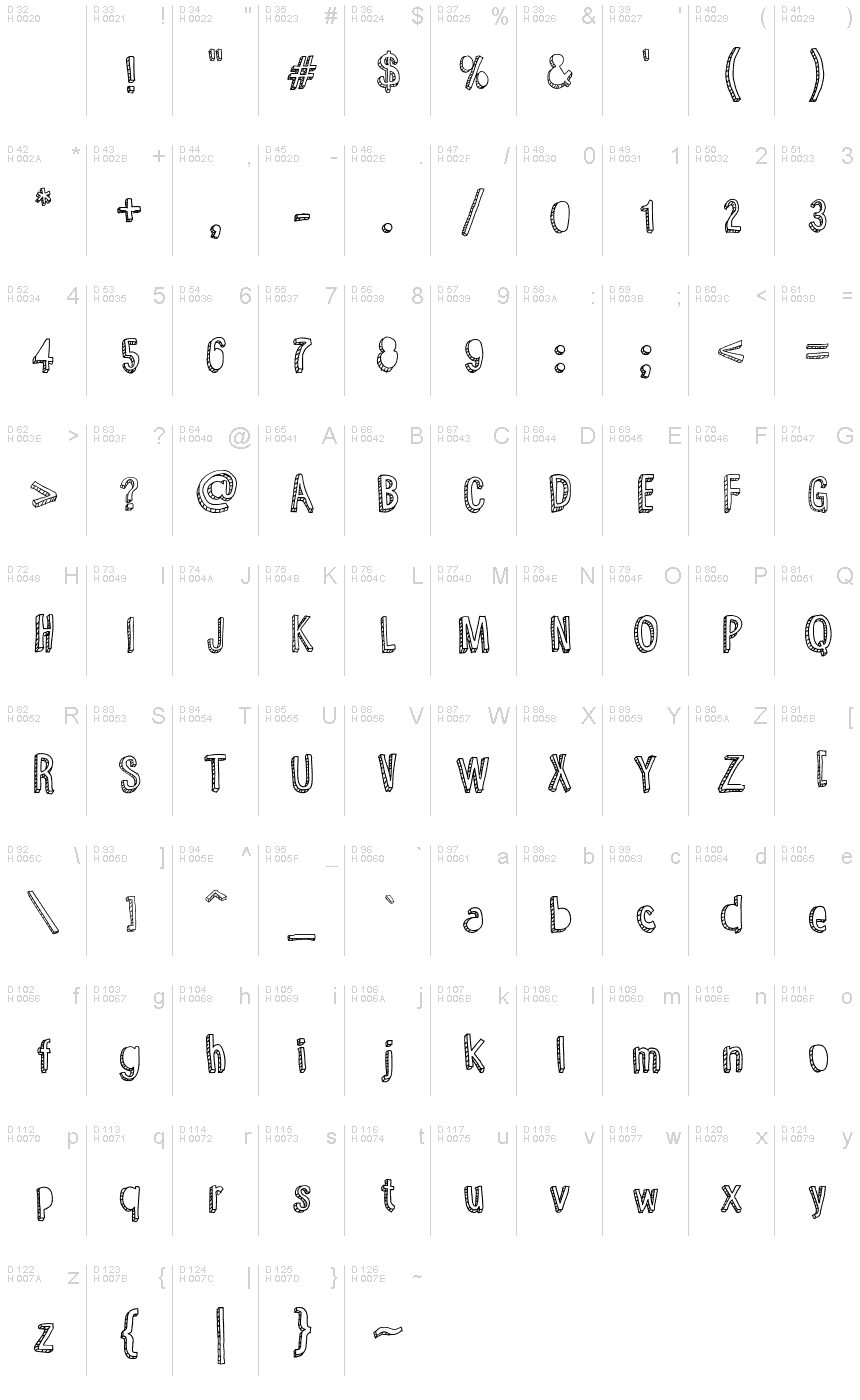
Yummy Lollipop
Introducing Yummy Lollipop, a whimsical display font designed by Galdino Otten. This light and condensed font is perfect to create cheerful projects, like handmade cards, posters, t-shirt designs and more. The playful cartoon style of Yummy Lollipop can also be used to make your presentation slides stand out. Let your imagination run wild and have fun with this unique typeface!